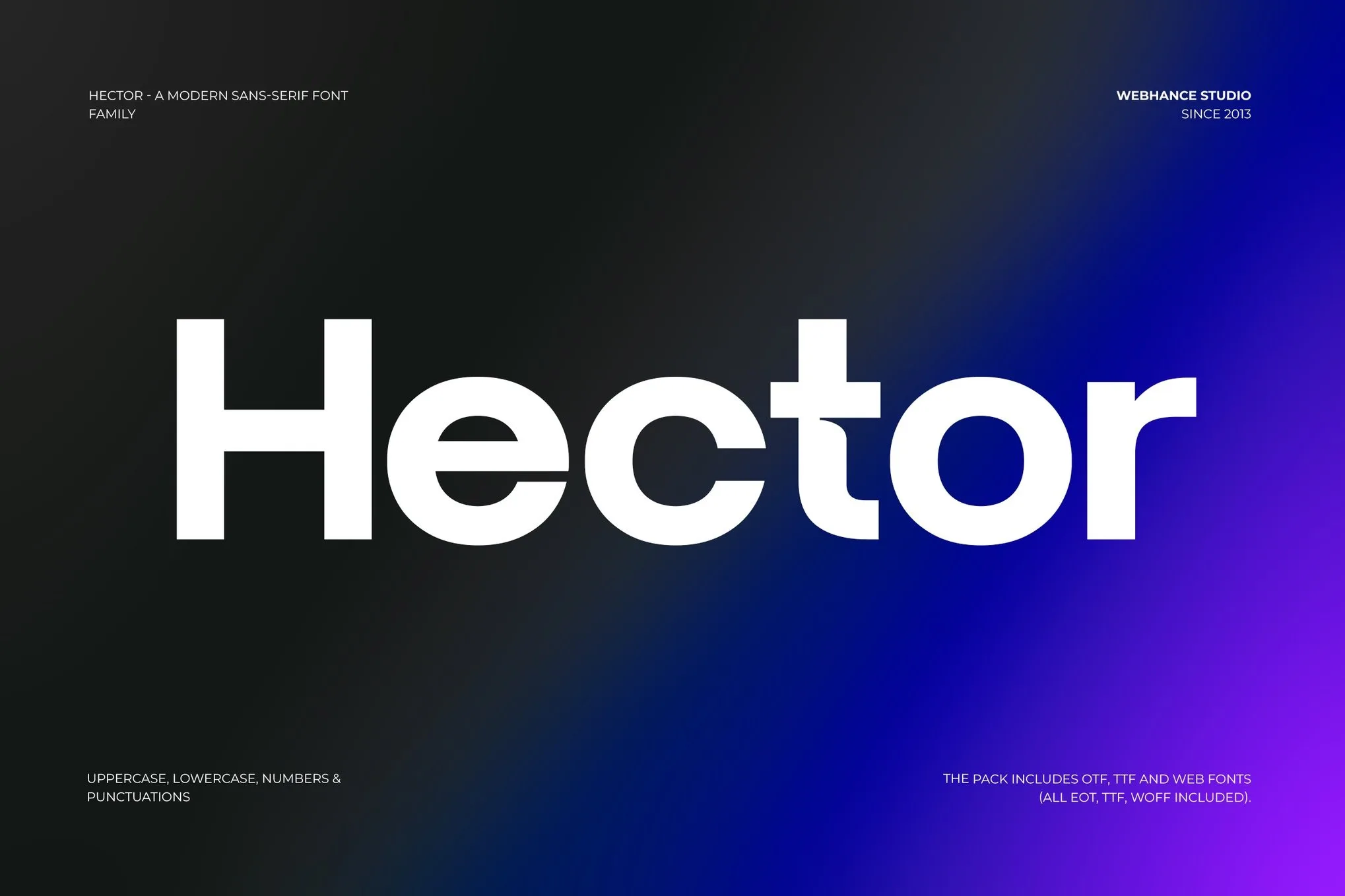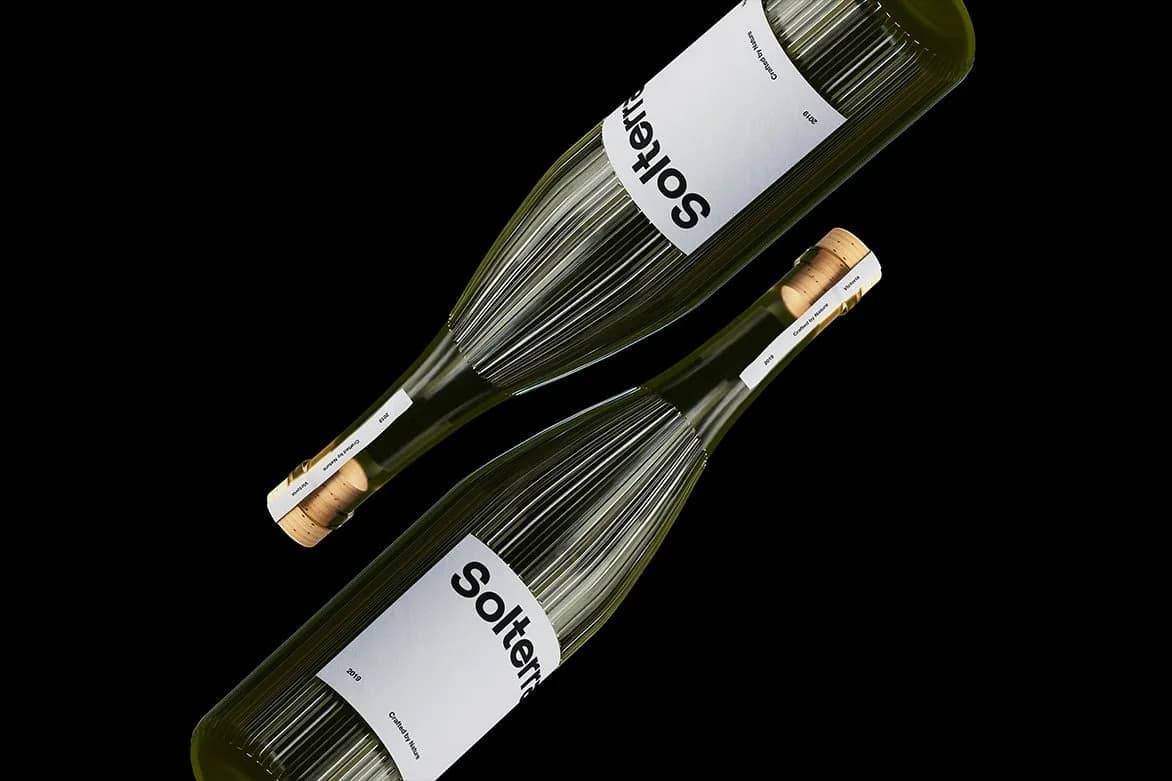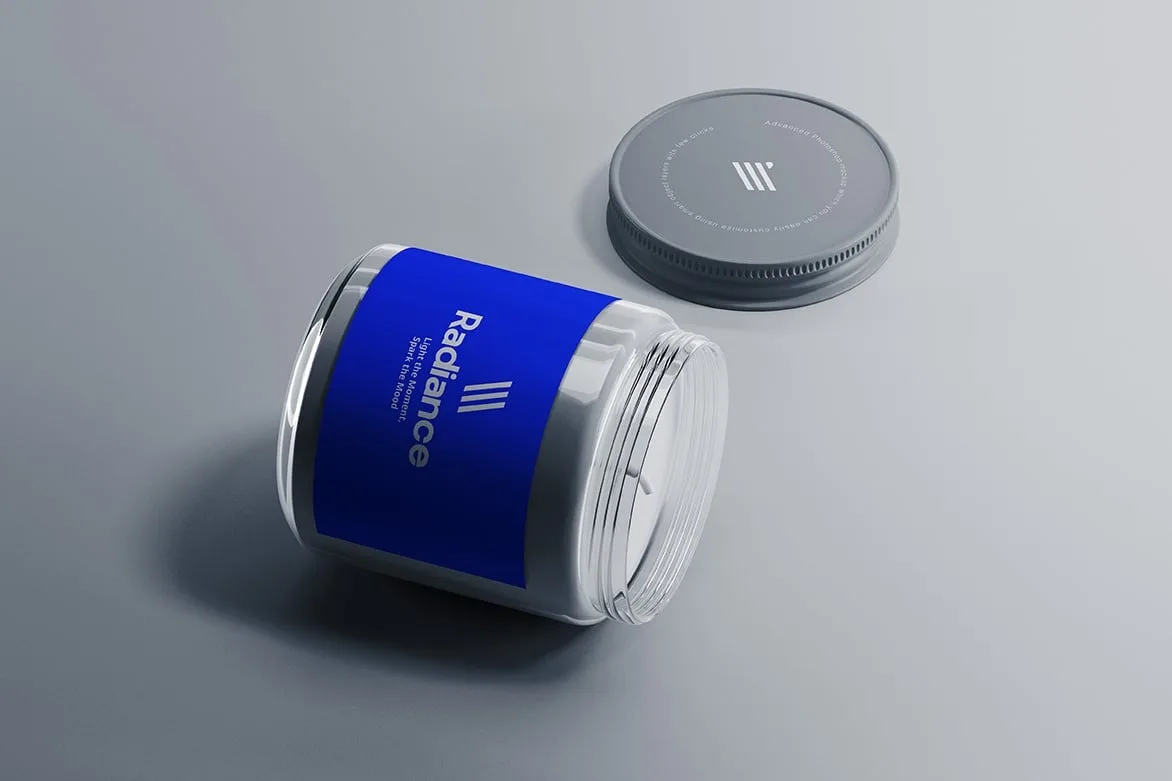
Hector
Hector is a bold sans-serif font that stands out in the display category, characterized by its robust geometry and refined aesthetics. The design focuses on clean lines and strategic kerning, creating a visually striking appearance that commands attention while maintaining clarity. This balance of strength and elegance makes Hector a versatile option for various applications, particularly in branding and marketing contexts.
Ideal for luxury logos, Hector excels in settings where a strong visual identity is crucial. Its minimalistic yet impactful style suits a range of uses, from social media fonts that enhance engagement on platforms like Instagram and YouTube, to high-quality editorial layouts that require a sophisticated touch. This font's ability to convey both beauty and power makes it especially effective in branding for products related to warfare, beauty, and luxury.
Moreover, Hector's support for Latin languages broadens its applicability for global brands looking to maintain a cohesive image across diverse markets. Whether utilized for bold headlines, clean logo designs, or eye-catching packaging, Hector proves to be an exceptional choice that enhances the overall aesthetic while ensuring legibility and visual appeal.